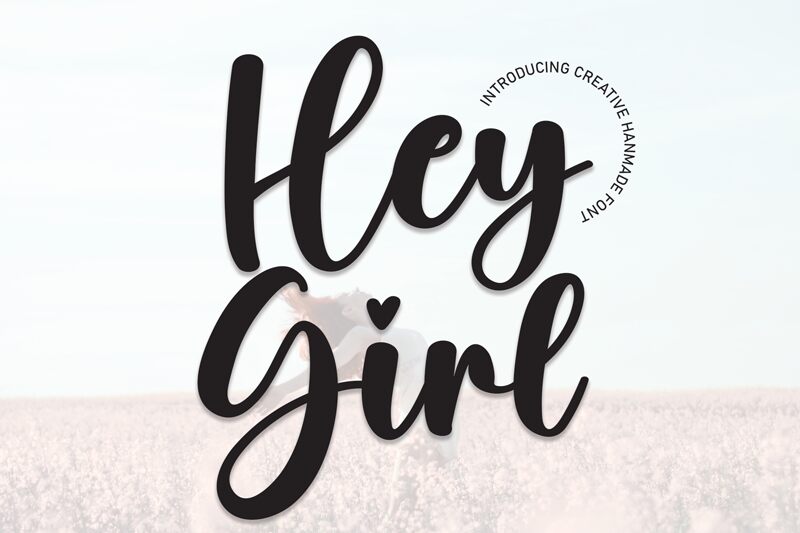
Hey Girl
Hey Girl, a charming semi-bold font designed by Scratchones, adds a touch of sweetness to any project.
With its cute calligraphy style, this font is perfect for creating eye-catching wedding invitations that capture the romantic essence of a couple's special day. Its versatility also makes it suitable for designing playful children's book covers or crafting whimsical greeting cards that bring joy to loved ones. Whether you're working on a blog header or adding flair to social media posts, Hey Girl will effortlessly infuse your designs with an enchanting and delightful vibe.
The latest style letters are perfect for wall displays, wedding invitations, social media post logos, advertisements, product packaging, product designs, labels, photography, watermarks, invitations, stationery, and any project that requires taste handwriting.
With its cute calligraphy style, this font is perfect for creating eye-catching wedding invitations that capture the romantic essence of a couple's special day. Its versatility also makes it suitable for designing playful children's book covers or crafting whimsical greeting cards that bring joy to loved ones. Whether you're working on a blog header or adding flair to social media posts, Hey Girl will effortlessly infuse your designs with an enchanting and delightful vibe.
The latest style letters are perfect for wall displays, wedding invitations, social media post logos, advertisements, product packaging, product designs, labels, photography, watermarks, invitations, stationery, and any project that requires taste handwriting.